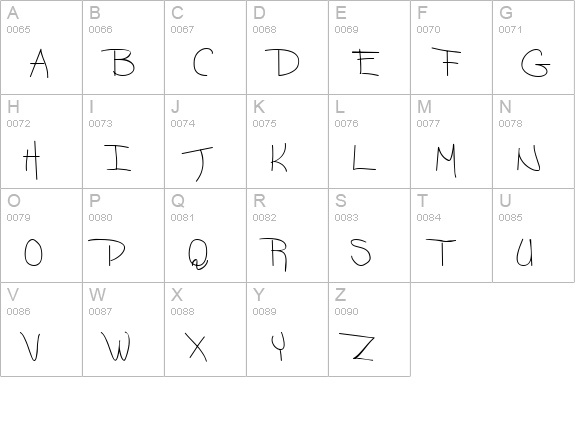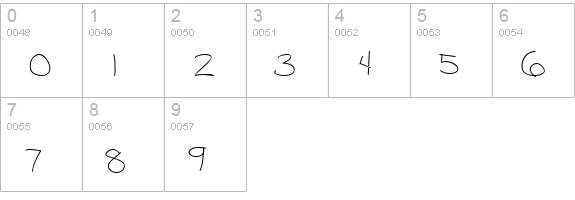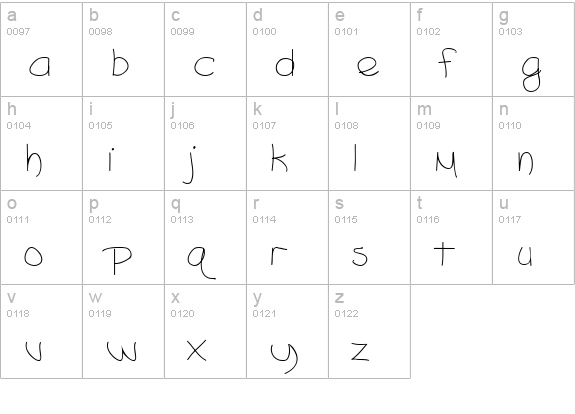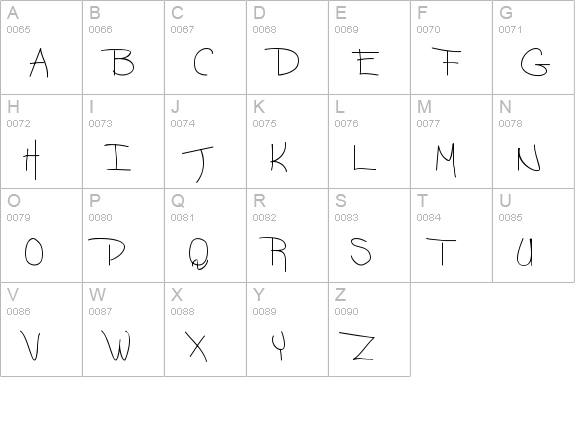
Mirakel Font Details
Mirakel font is a stunning display typeface that exudes elegance and sophistication. With its delicate curves and unique letterforms, Mirakel is sure to make any design project stand out. This versatile font is perfect for branding, logos, invitations, and more. What's even better is that Mirakel font is completely free to download at FontsMarket.com. You can add this beautiful font to your collection without breaking the bank. Don't miss out on the opportunity to elevate your designs with the enchanting Mirakel font. Download it today and let your creativity soar!